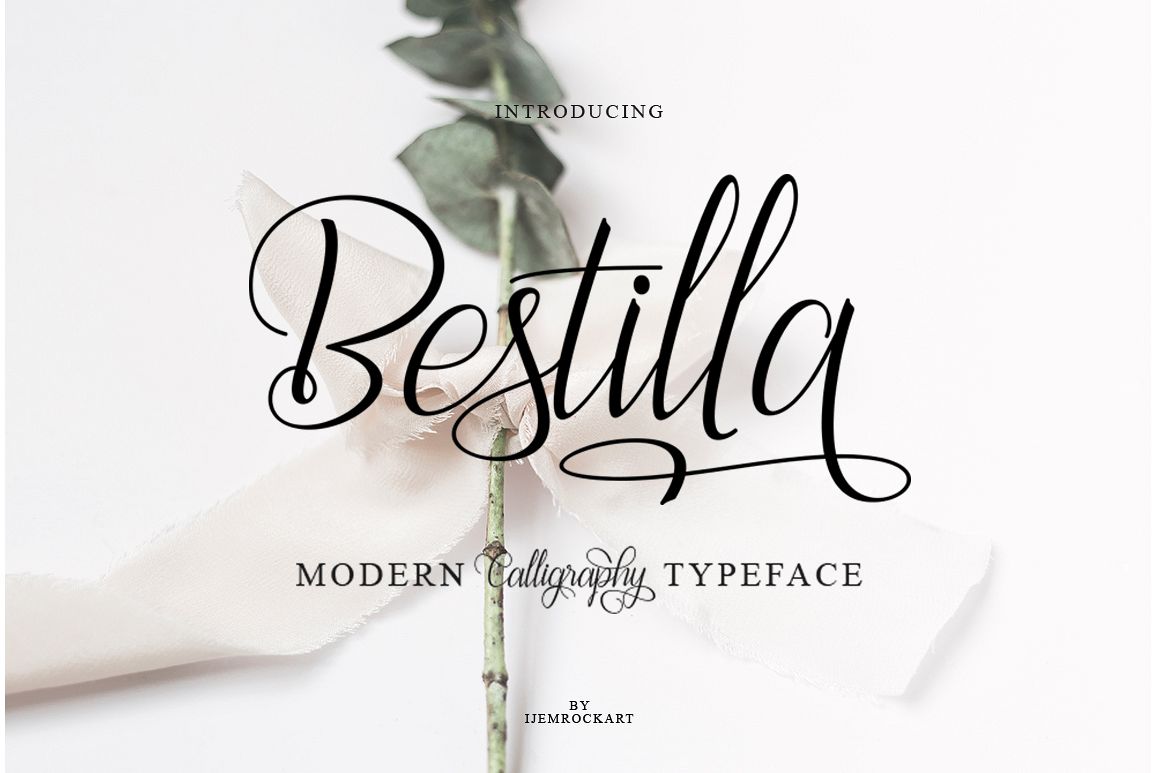
Bestilla Script
Bestilla Script modern script & Sans with a handmade calligraphy style, decorative characters and a dancing baseline! So beautiful on invitation like greeting cards, branding materials, business cards, quotes, posters, and more!!Bestilla Script come with 1372+ glyphs. The alternative characters were divided into several Open Type features such as Swash, Stylistic Sets, Stylistic Alternates, and Ligature. The Open Type features can be accessed by using Open Type savvy programs such as Adobe Illustrator, Adobe InDesign, Adobe Photoshop Corel Draw X version, And Microsoft Word. And this Font has given PUA unicode (specially coded fonts). so that all the alternate characters can easily be accessed in full by a craftsman or designer.
• Bestilla Script Features :
Uppercase & Lowercase International Languange & Symbols Support Punctuation & Number PUA Unicode Range Standard Ligatures Discretionary Ligatures Stylistic Alternates Stylistic Set 1-99: